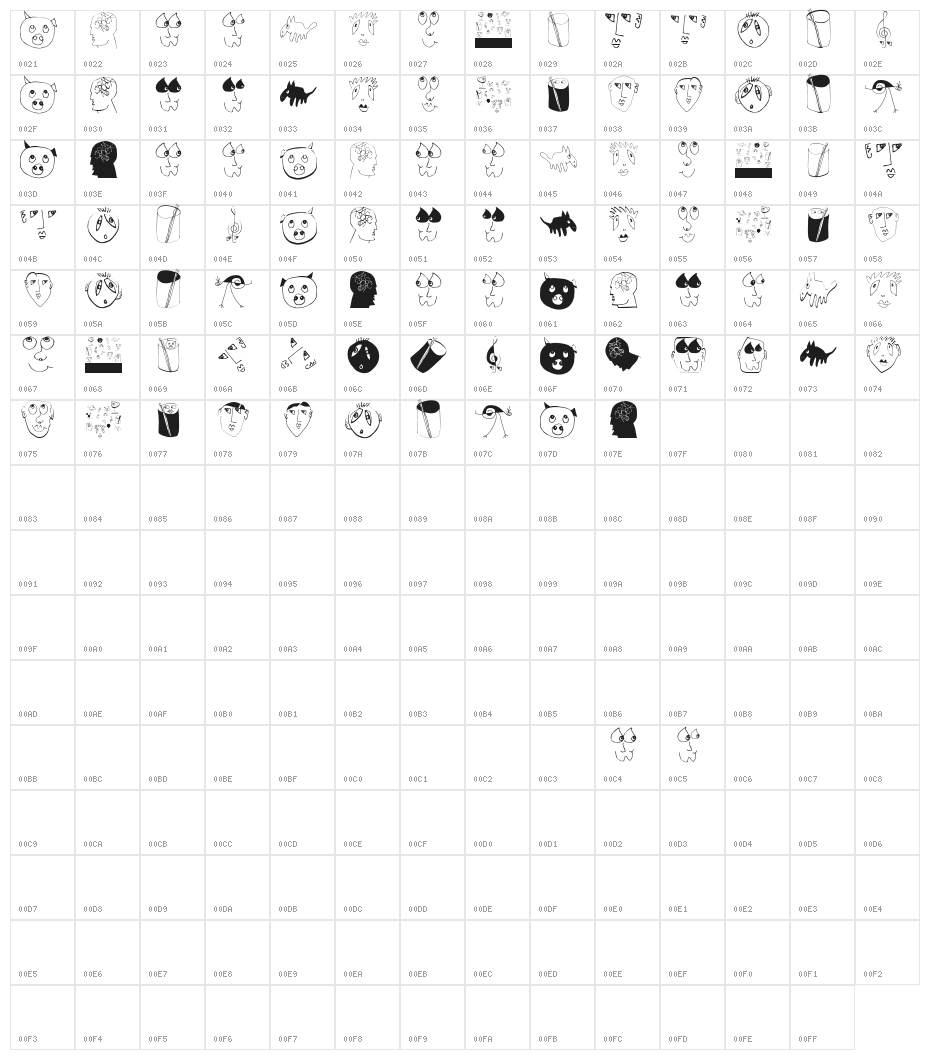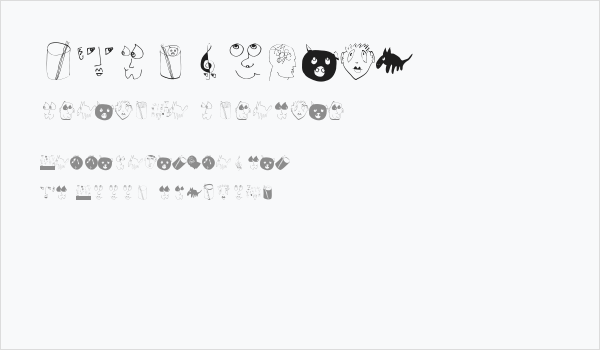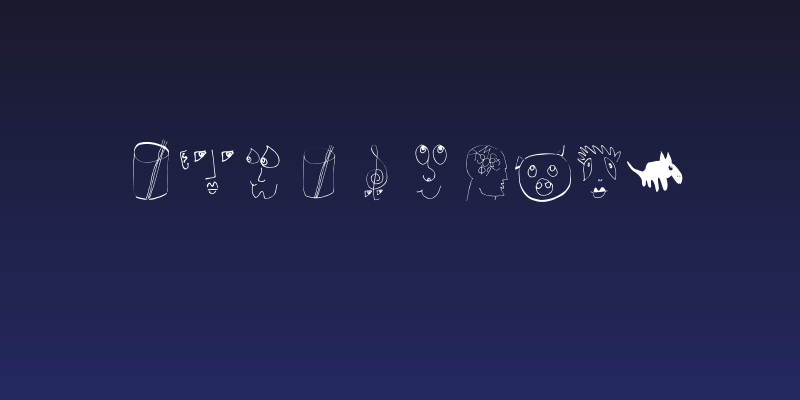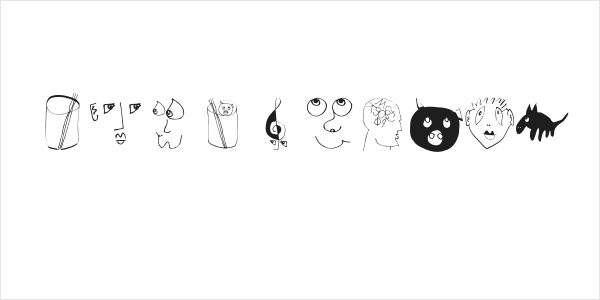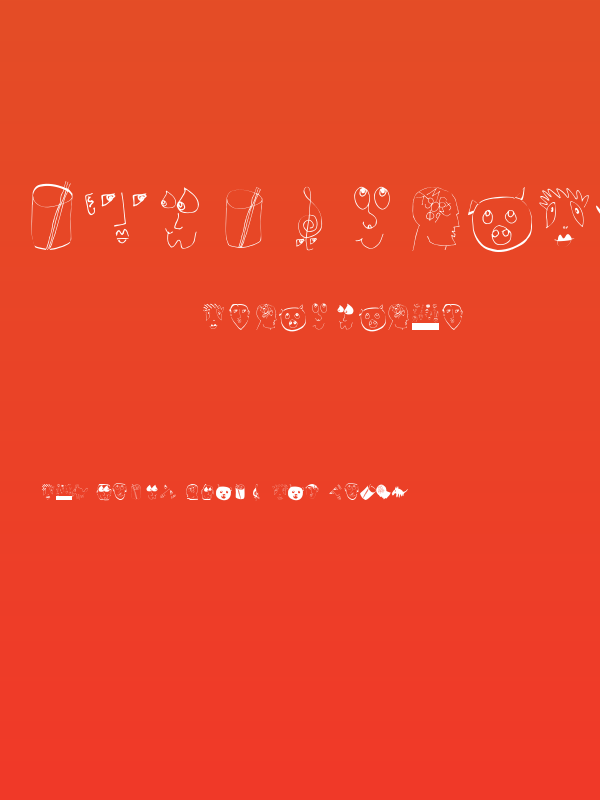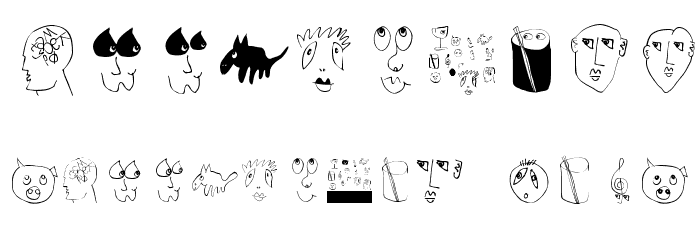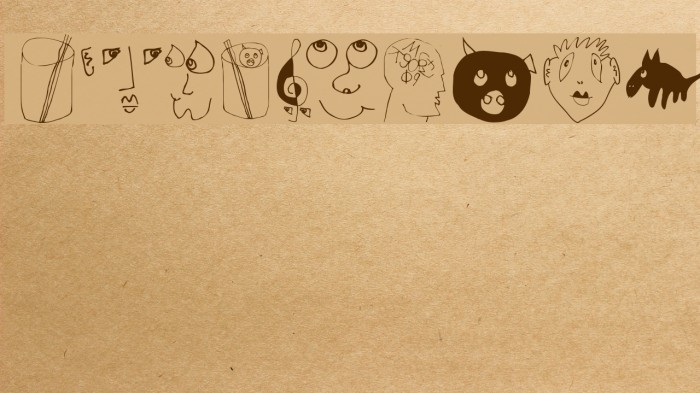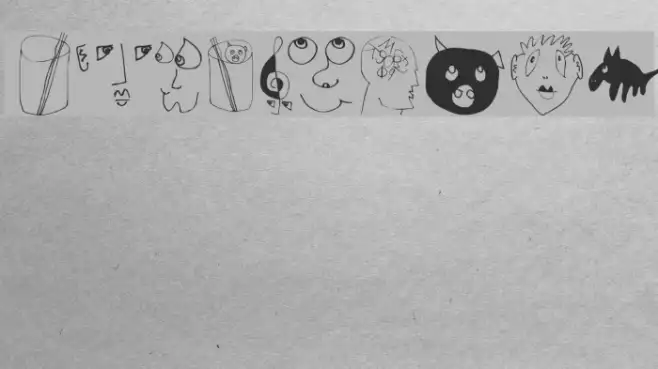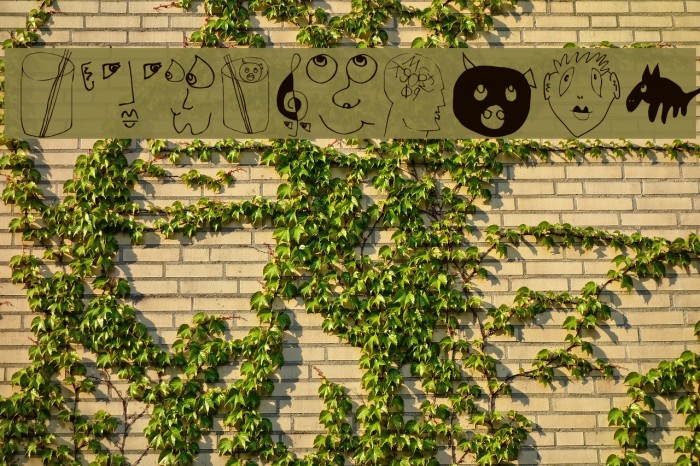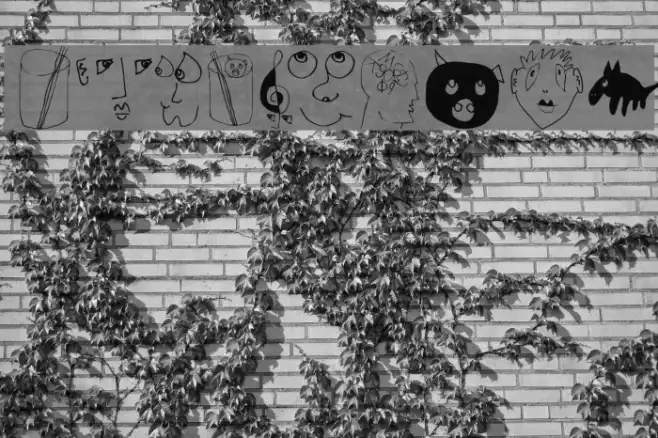
MKDingBats Font
MKDingBats Description
This font is a collection of whimsical and playful dingbats, featuring a variety of quirky illustrations. The characters include abstract faces, animals, and other imaginative doodles, each with a unique and humorous expression. The style is hand-drawn, with a sketch-like quality that adds a personal and artistic touch. The line work varies from thin to bold, creating an engaging visual contrast. These elements make it ideal for creative projects that require a fun and informal aesthetic.
| Overall Style | Whimsical, Artistic |
| Use Case | Decorative elements, Illustrations |
| Proposed Projects | Ideal for children's books, greeting cards, creative posters, and playful branding. |